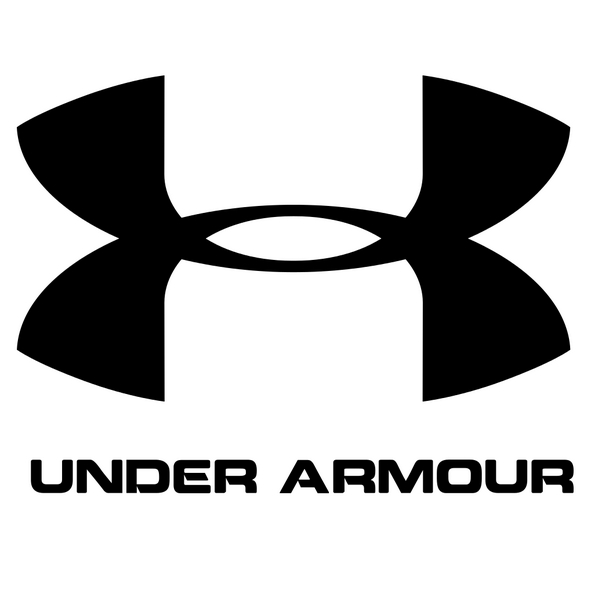
Under Armour Font
The company's logo was apparently created using the geometric sans serif font Eurostile Ext Black. It was designed by Aldo Novarese and released in 1962. More details about the font can be found here.